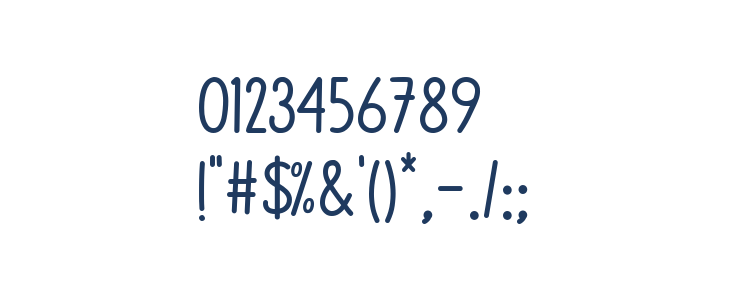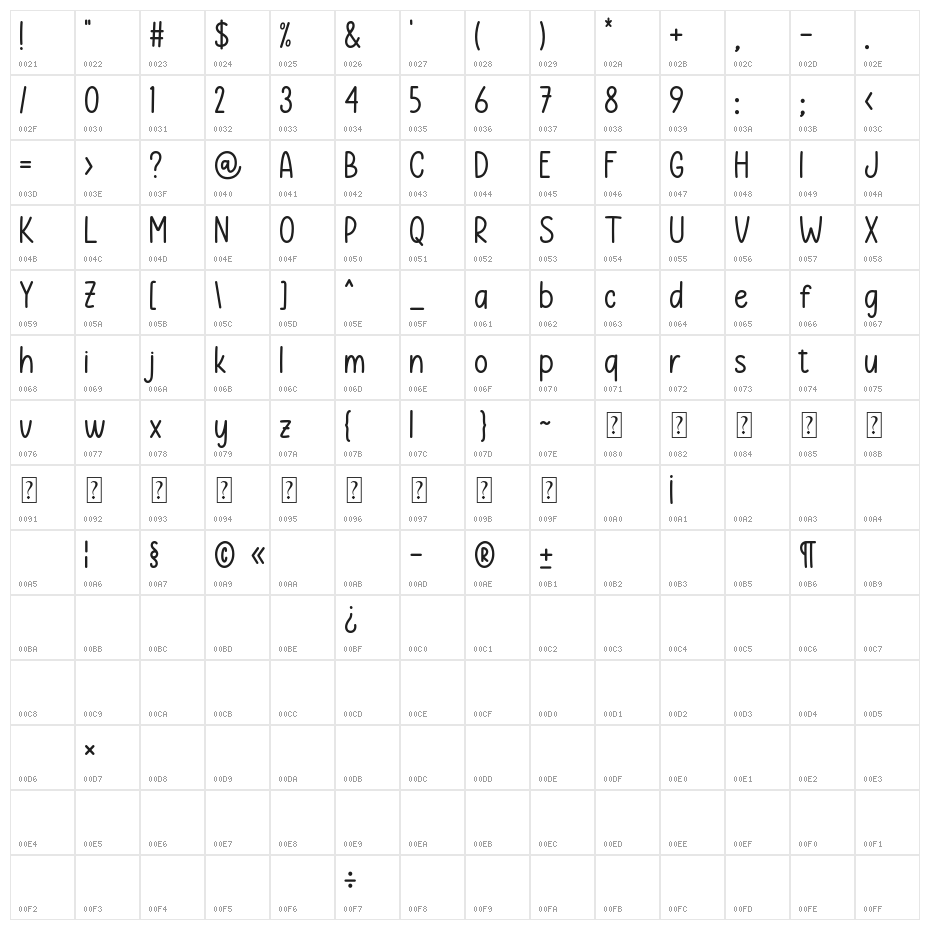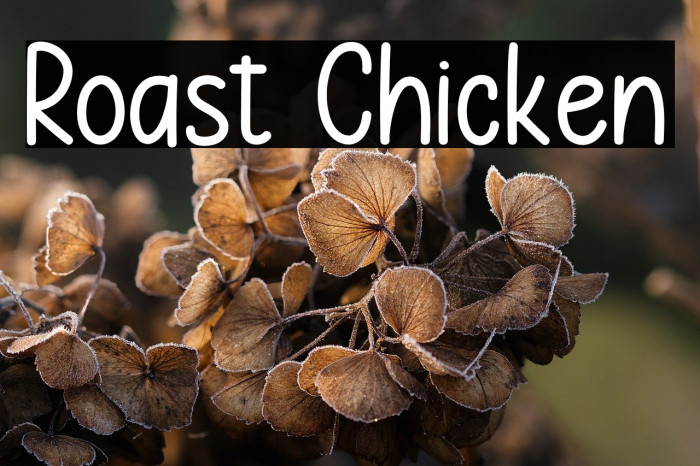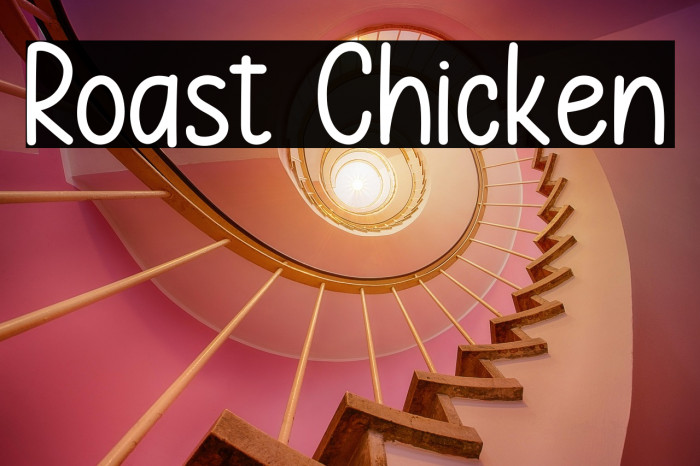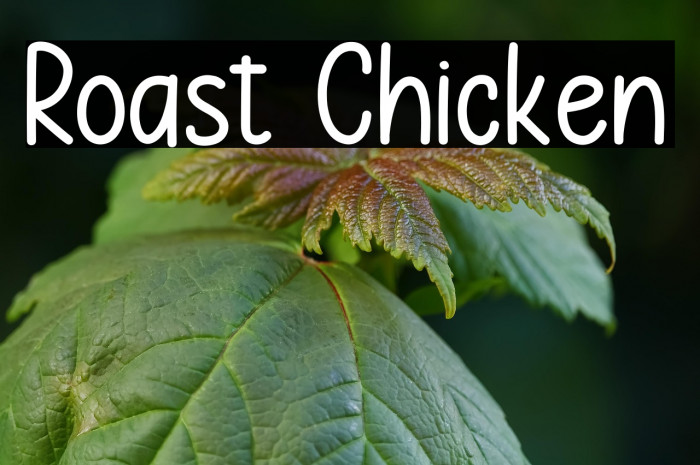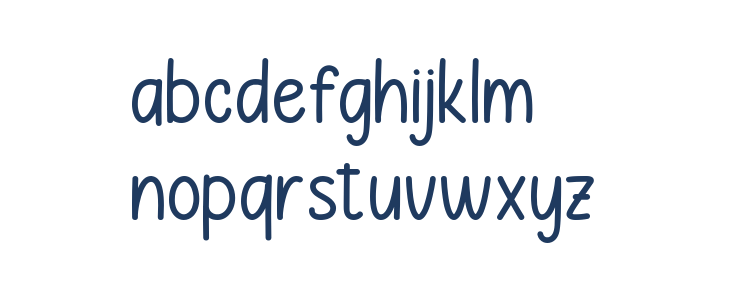
Roast Chicken Font
Roast Chicken Description
This playful and informal font features rounded edges and a handwritten style that exudes a friendly and approachable vibe. The characters are slightly elongated, giving them a unique and quirky appearance. The uppercase and lowercase letters maintain a consistent style, with smooth curves and a casual flow. The numerals are clear and easy to read, matching the overall aesthetic of the font. Special characters are well-integrated, maintaining the same playful and informal tone. This font is perfect for projects that require a personal touch or a sense of whimsy.
Overall StyleCasual, Playful
Use CaseHeadlines, Informal text, Creative projects
Proposed ProjectsIdeal for greeting cards, children's books, casual branding, and playful posters.